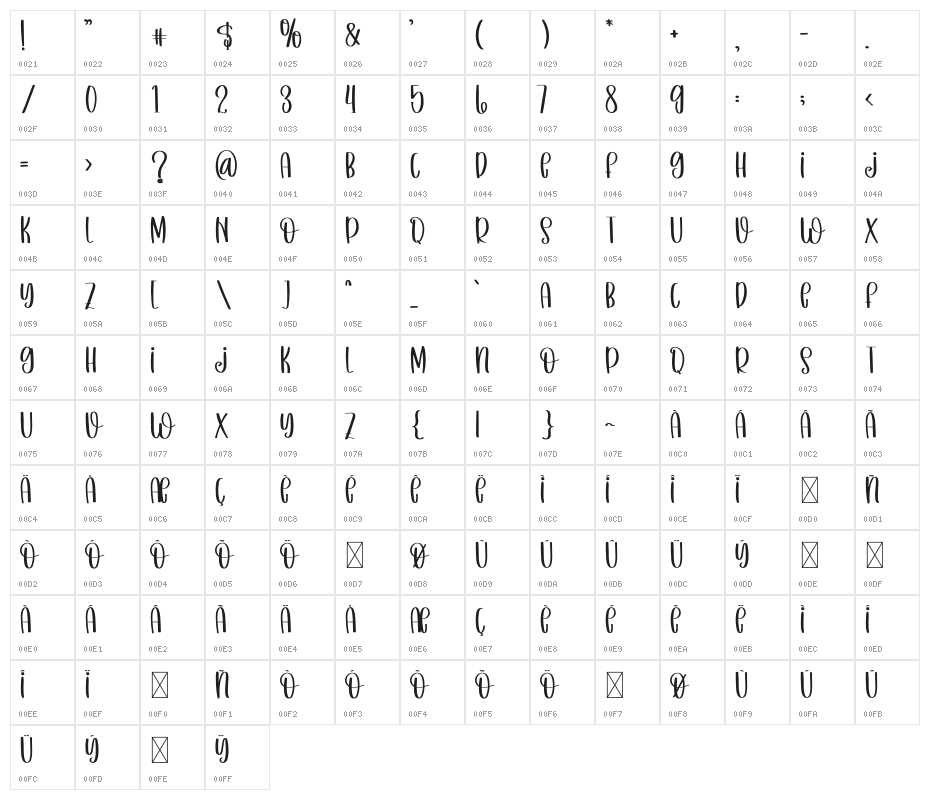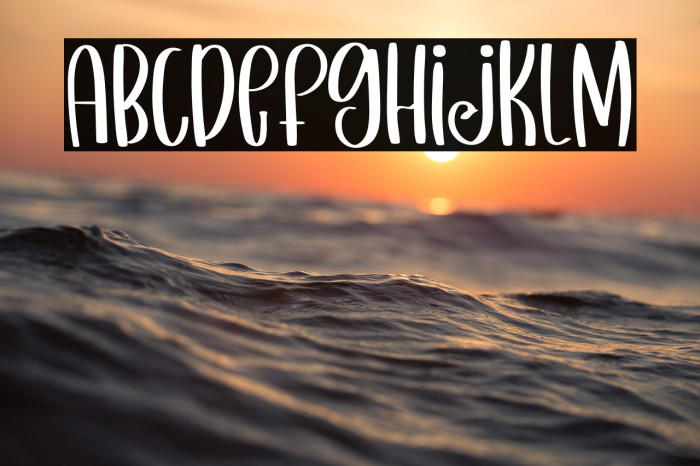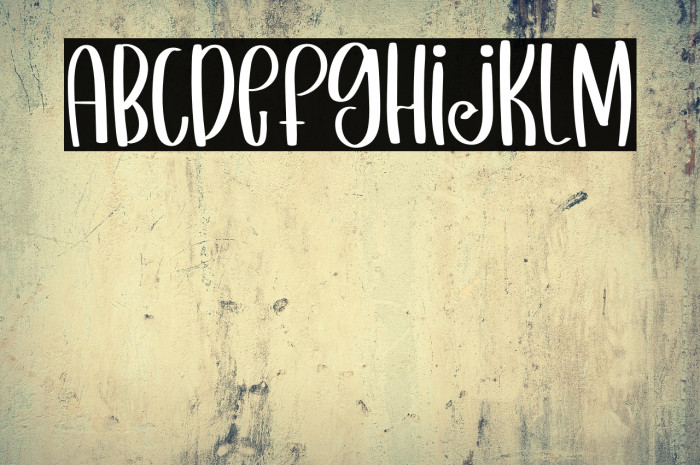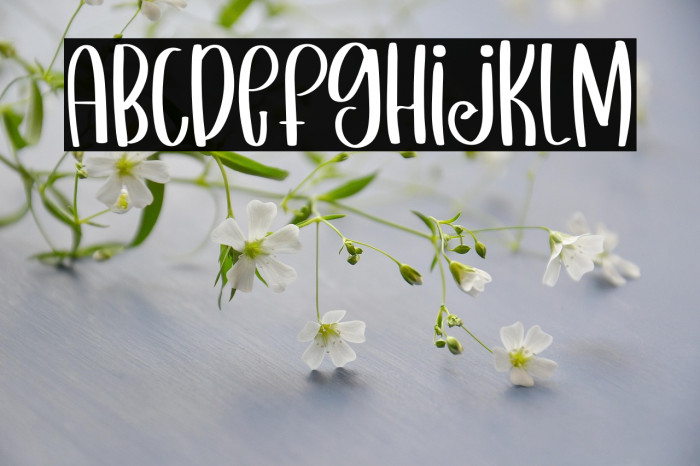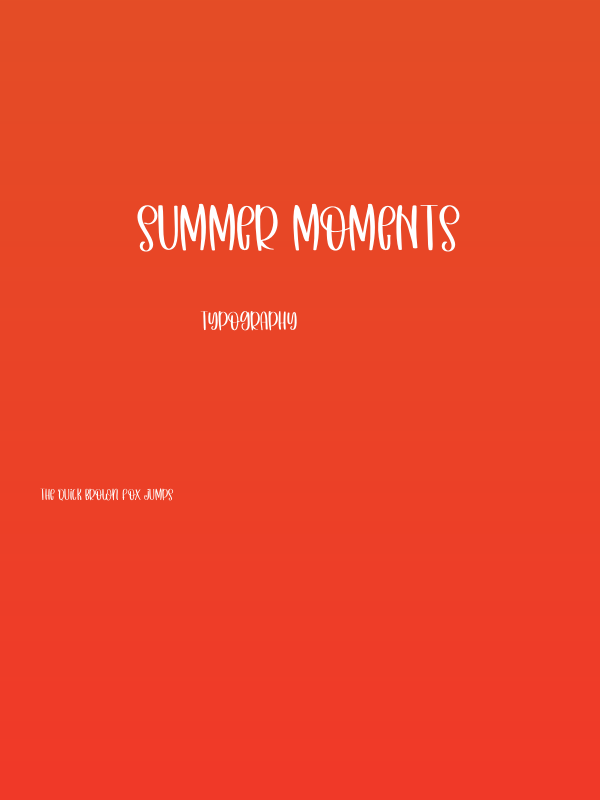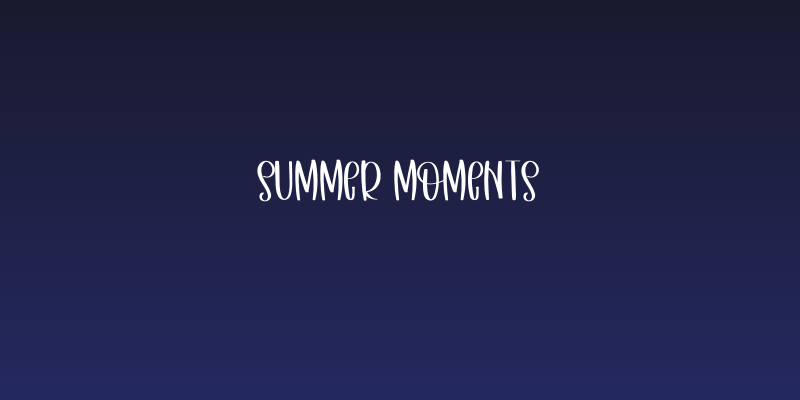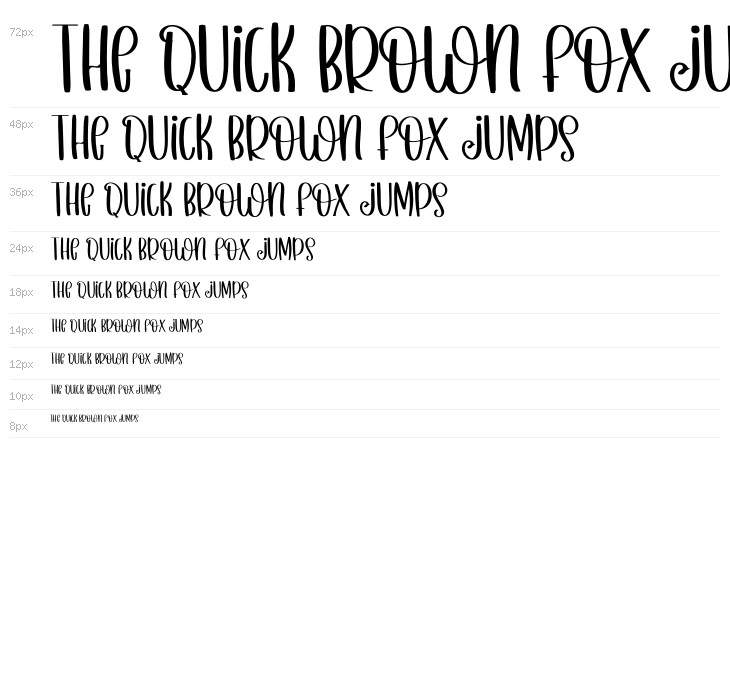
Summer Moments Font
Summer Moments Description
This font features a playful and whimsical design, characterized by its tall, narrow letters with a slight slant, giving it a handwritten feel. The strokes are smooth and consistent, with rounded edges that add a friendly and approachable vibe. The uppercase and lowercase letters maintain a cohesive style, while the numerals and special characters blend seamlessly with the overall aesthetic. This font's unique flair makes it suitable for creative projects that require a touch of personality and charm.
| Proposed Projects | Ideal for greeting cards, invitations, posters, and branding materials that seek a fun and personal touch. |